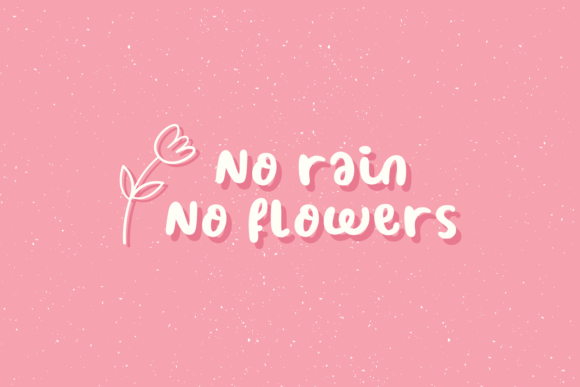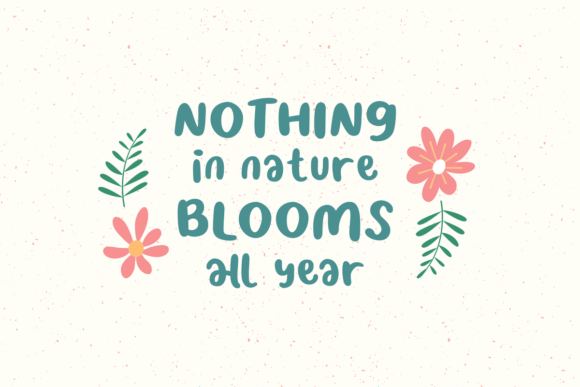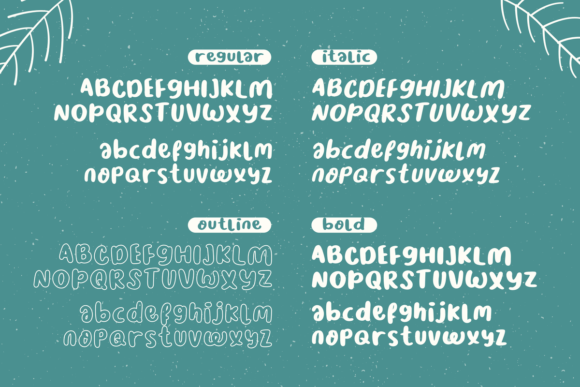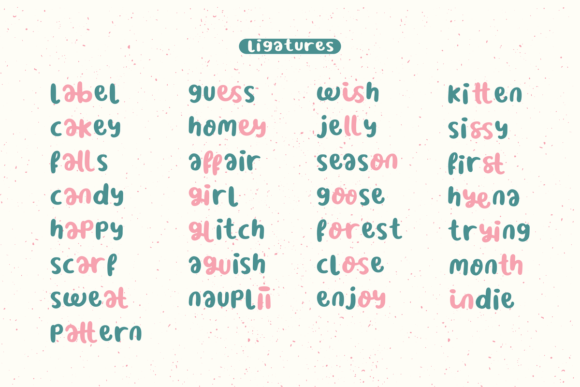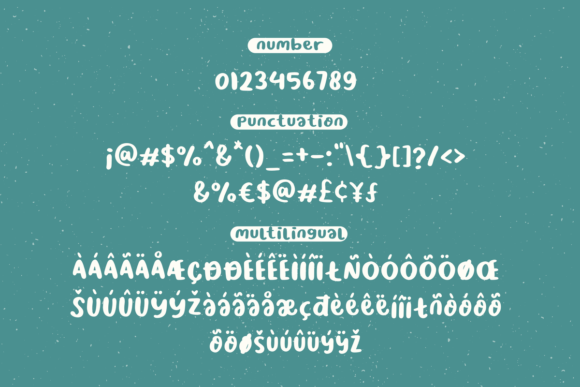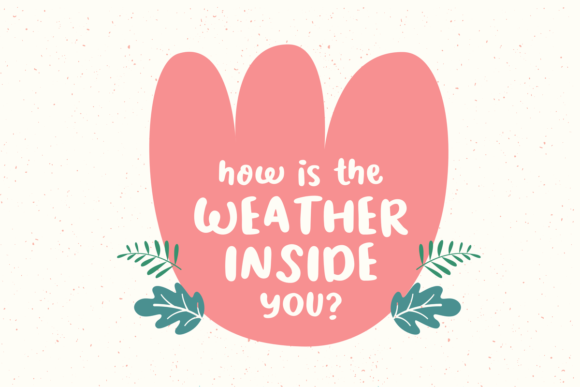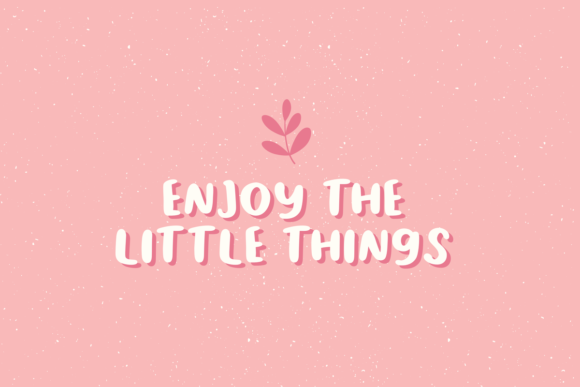
Introducing “Nice Weather,” a charming and playful paint brushed handwritten font that adds a delightful touch to all your creative endeavors.
With its unique and whimsical strokes, Nice Weather is the perfect choice for a wide range of branding projects. Whether it’s logos, t-shirt designs, or other creative products, this font infuses a sense of joy and creativity that sets your work apart.
The carefree and organic nature of Nice Weather lends itself beautifully to various contexts. Its versatility ensures that it shines on everything from promotional materials to packaging, adding a touch of character that captures attention.
Imagine the cheerful vibe of Nice Weather gracing your t-shirts, making your brand effortlessly cool and inviting. Its handcrafted feel brings a personal and relatable element that resonates with your target audience.
Capture the essence of sun-soaked days and clear skies with Nice Weather. Its playful charm and artistic flair make it the ideal companion for any design project where you want to convey a sense of positivity and optimism.
Let Nice Weather be the sunny addition to your creative toolkit. Its cute and paint brushed style brings a breath of fresh air to your designs, making them stand out and leave a lasting impression. Whether you’re working on logos, merchandise, or any other project, Nice Weather is sure to bring a ray of sunshine to your work.